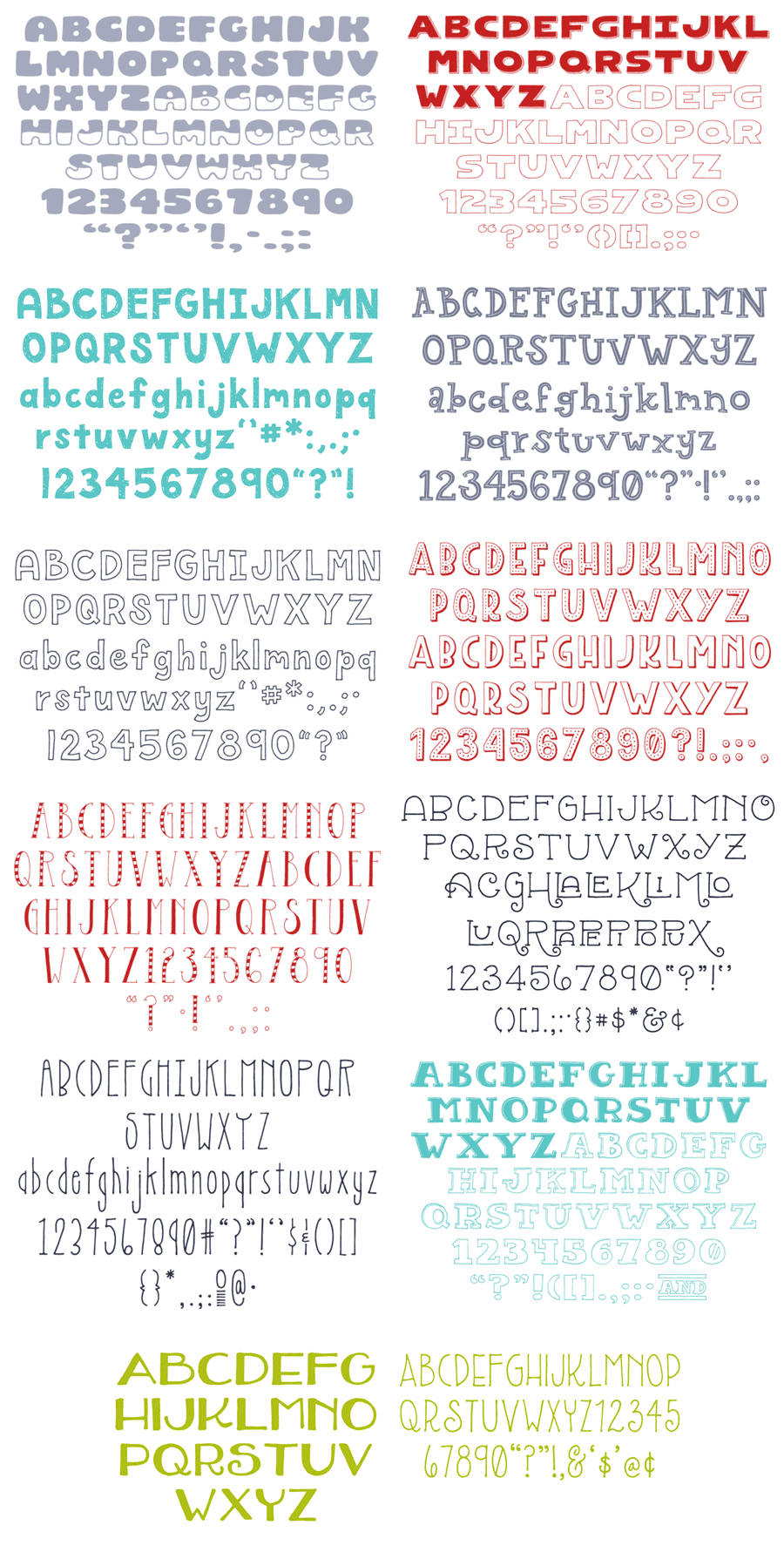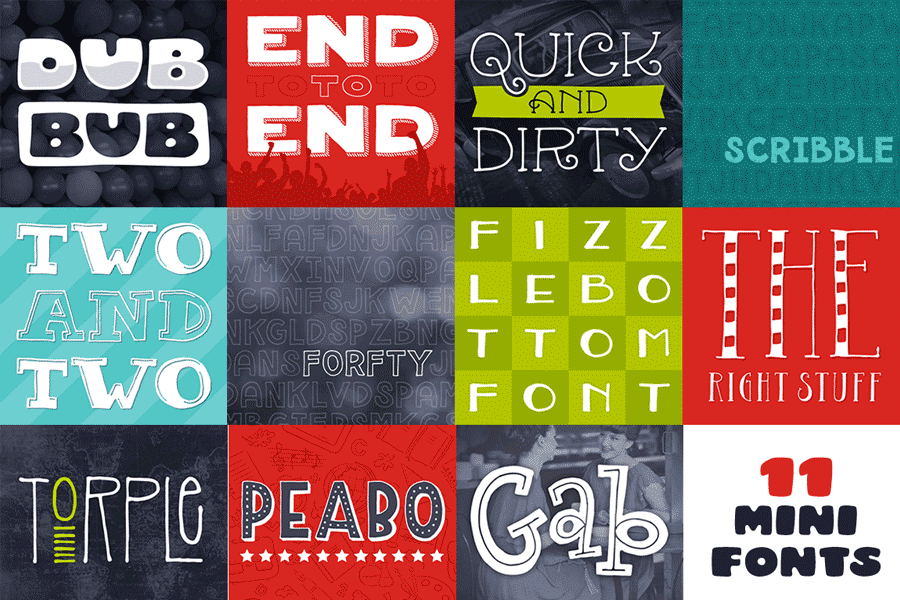
This week’s font freebies from Creative Market featuring 11 quirky fonts that you can download without paying a cent! It’s a set of fonts in different designs, which are really suitable for font mashup designs, especially for party or celebration themes!